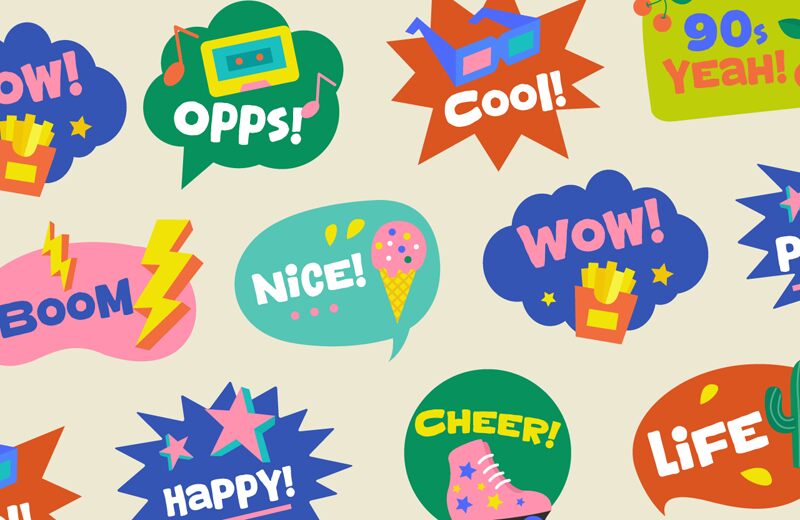
Jetsy Trial Regular
Jetsy font by Eko Bimantara is a free cartoon display typeface with chunky, ink-black letters that look like they’ve been cut from paper or dabbed with a fat marker. Each character leans and wobbles just enough to feel playful and hand-made, while the tight spacing keeps words reading as bold, inky blobs of personality rather than chaos. There’s a tactile, cut-out quality to Jetsy that makes every word feel like part of a quirky logo or a splashy headline.
Using Jetsy, you get instant character for kids’ books, YouTube thumbnails, snack packaging, event posters, stickers, and bold social graphics. This free font shines when used big and loud, where its irregular shapes can really show off. For a simple pairing, set main headlines in Jetsy and support text in a clean geometric sans to keep the fun readable and grounded.